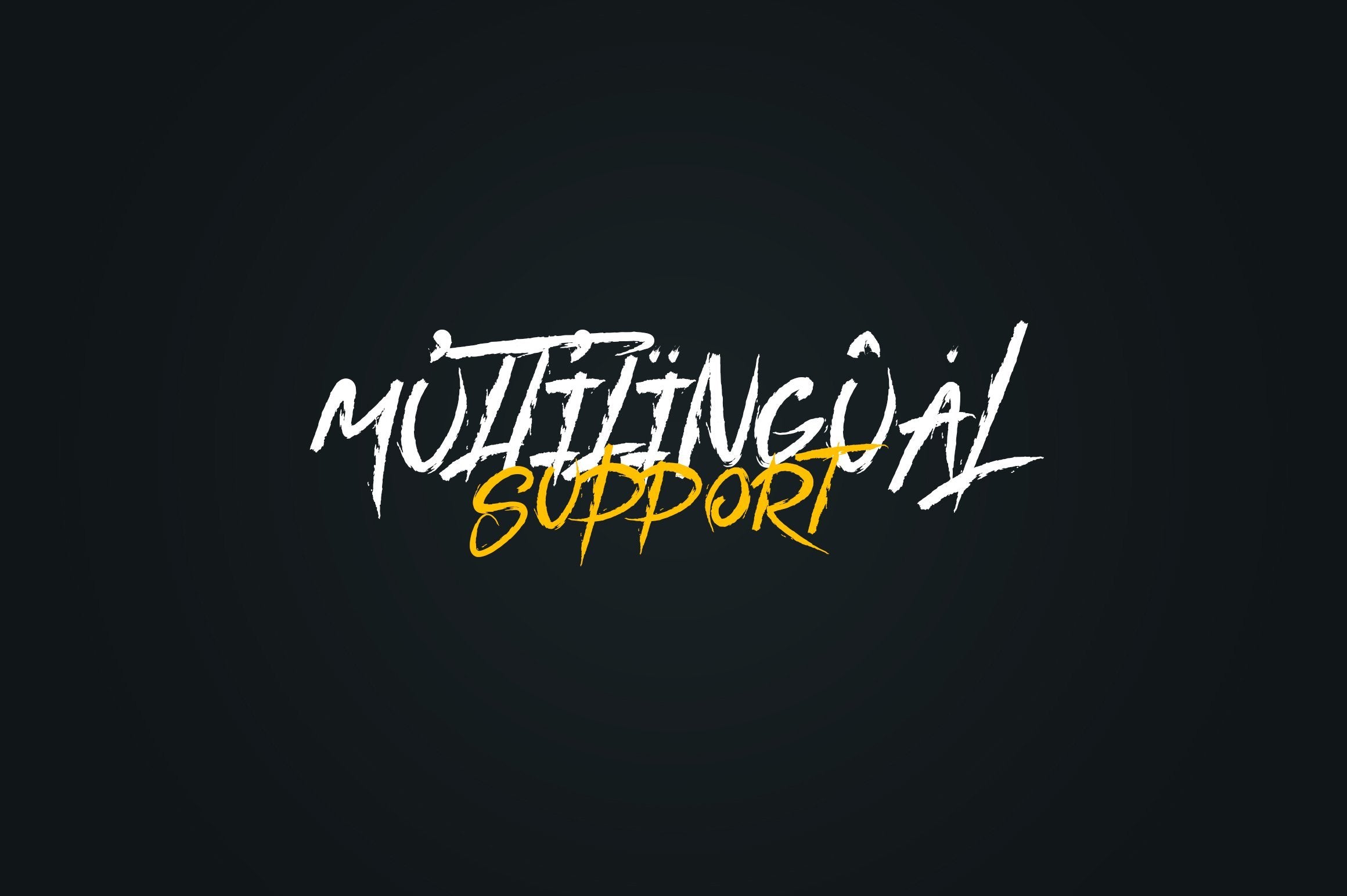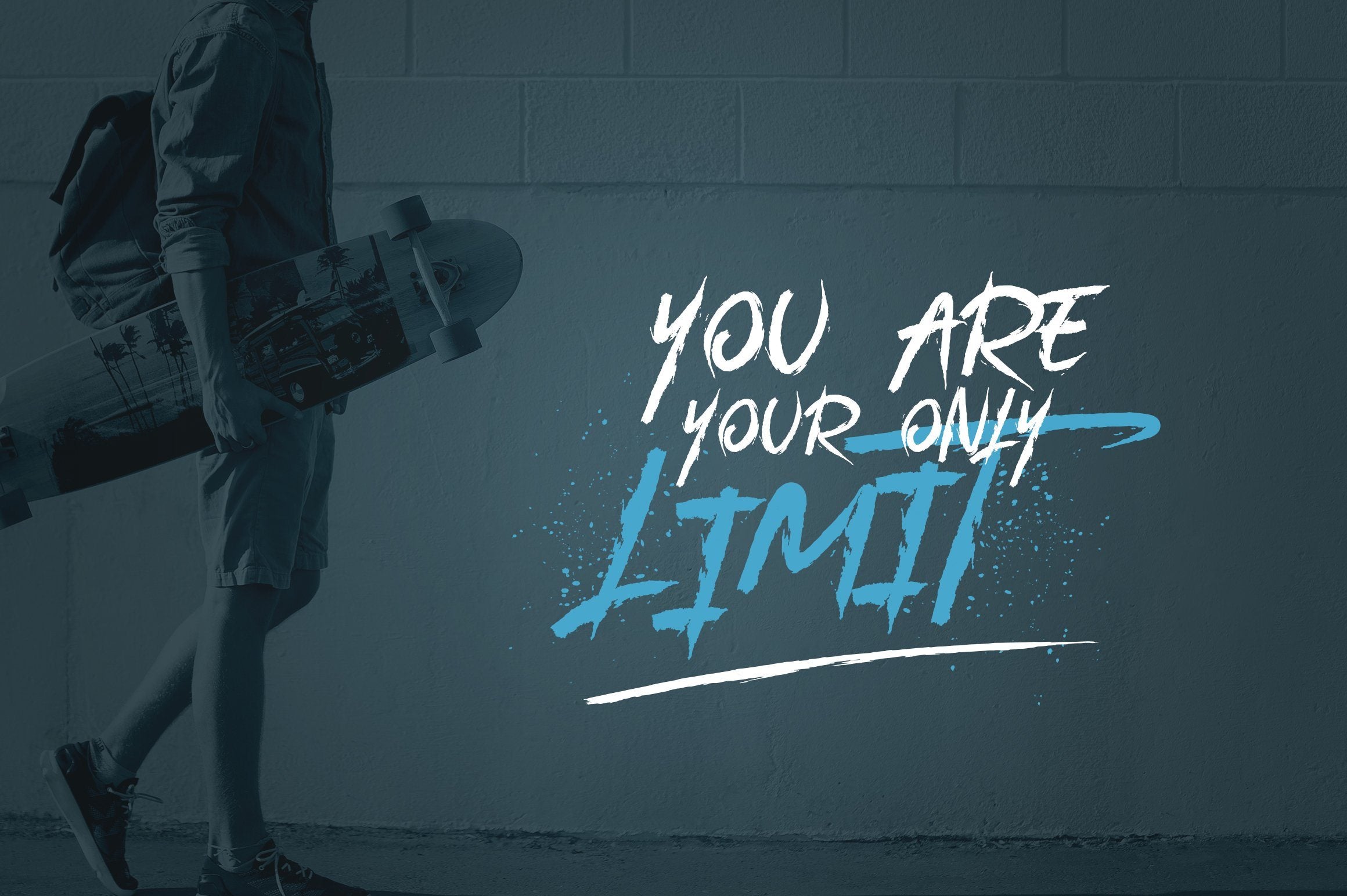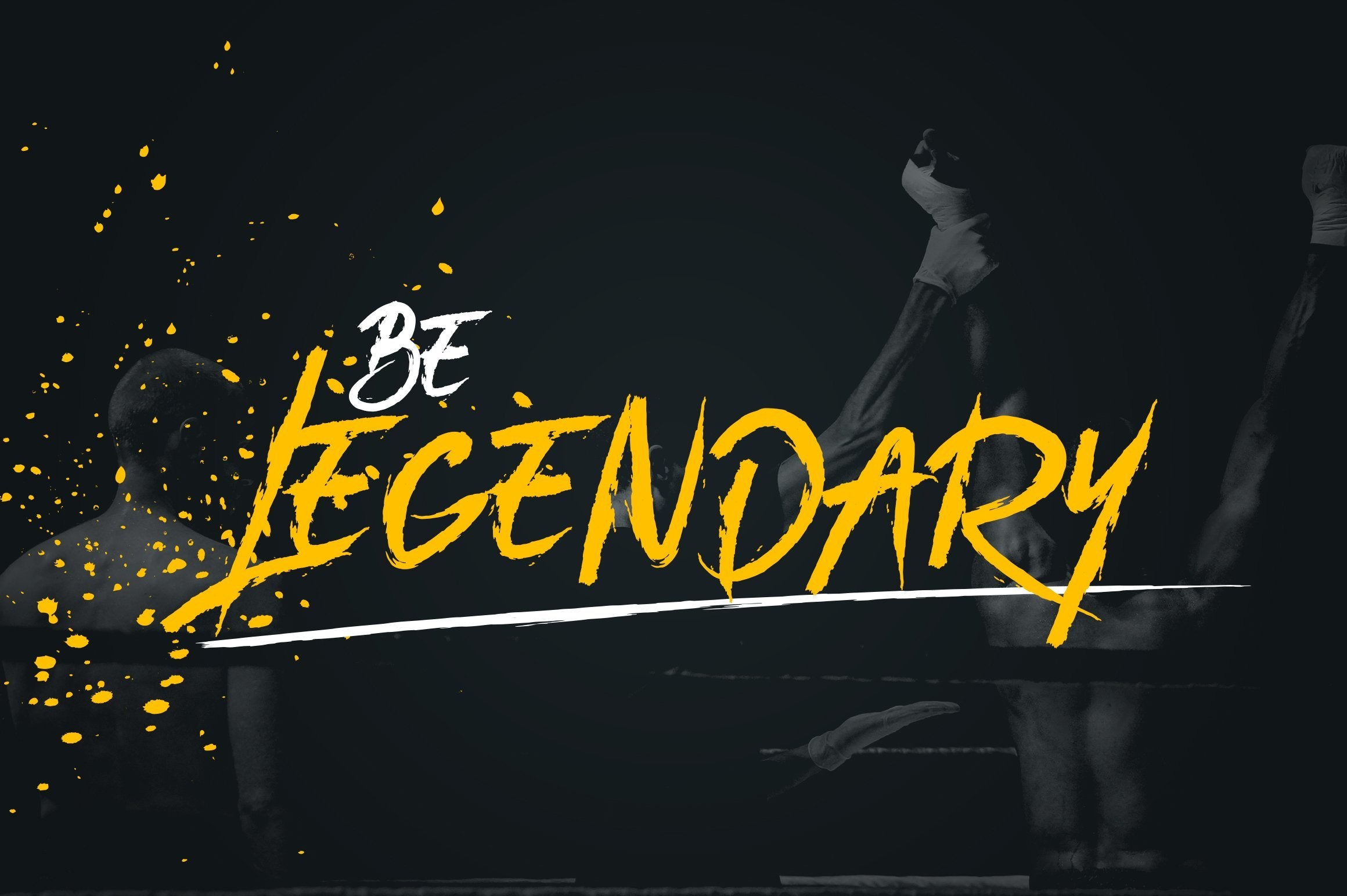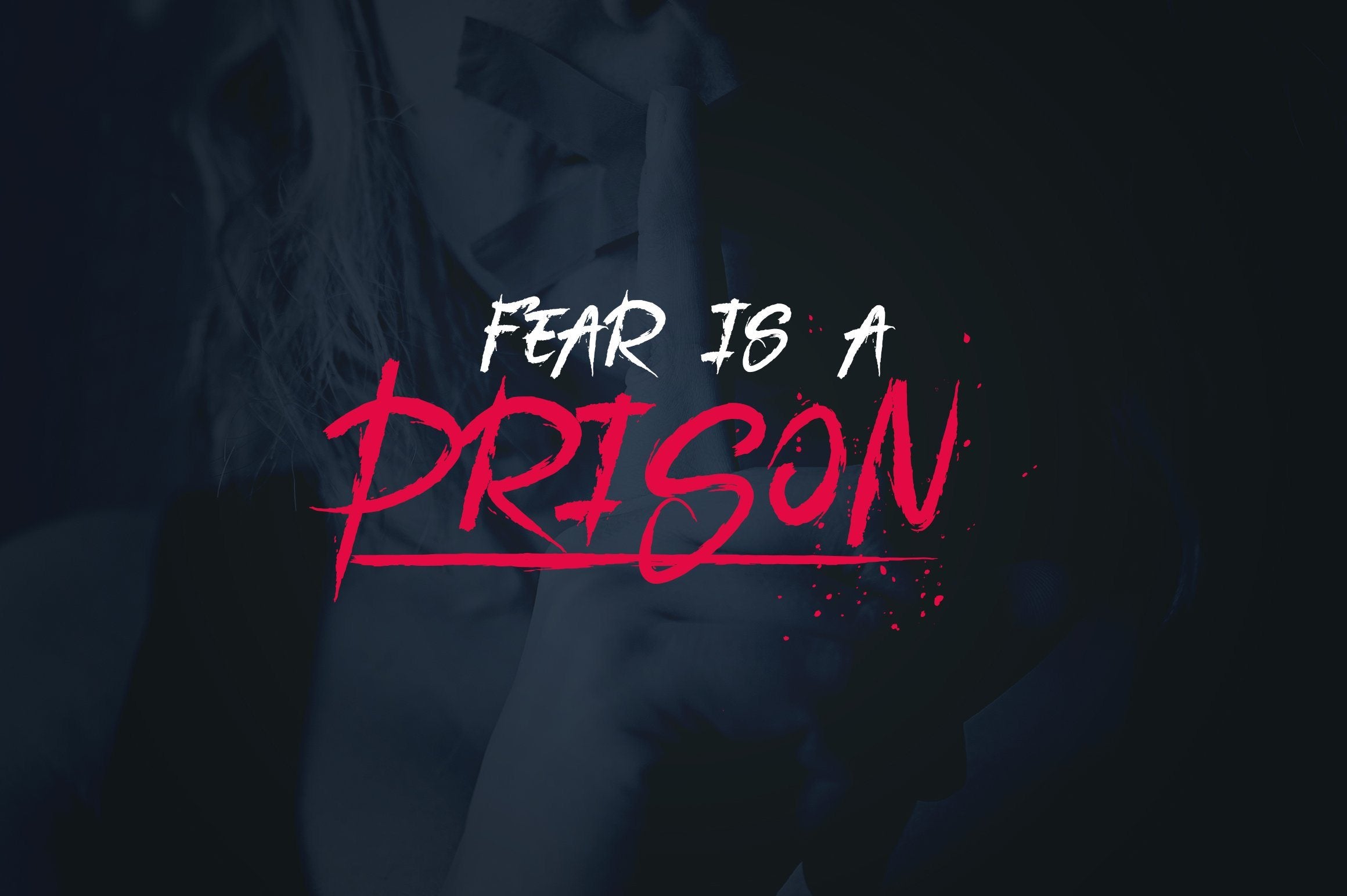
DarkHeart dry brush font DarkHeart is rough, freehand font with additional vector elements and multilingual support. It’s a very versatile font that works great in large and small sizes. DarkHeart is perfect for branding projects, home-ware designs, product packaging, magazine headers – or simply as a stylish text overlay to any background image. Uppercase,lowercase,numeral,punctuation & Symbol Multilingual Vector Elements Feel free to contact me if you have any questions! Mock ups and backgrounds used are not included! Thank you! Enjoy!